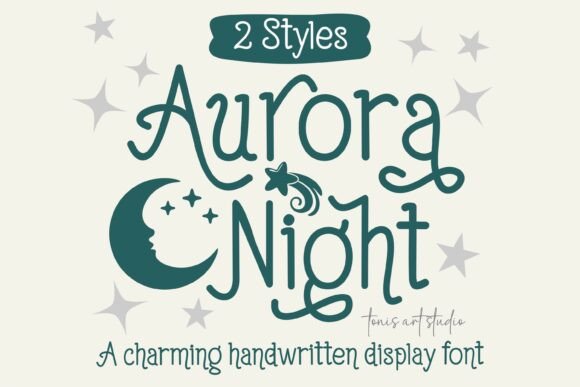
Introducing Aurora Night: The Whimsical Handwritten Font to Illuminate Your Designs
Aurora Night: A Font that Shines
Aurora Night is a beautiful, curly font that captures the enchantment of twinkling stars, gentle moonlight, and dream-filled nights. Its intricate curls, dynamic swishes, and tender, whimsical look make it an ideal choice for craft projects that call for a star-studded, romantic vibe. This font comes in two versatile styles: Regular and Lite, offering a variety of applications, from light and feathery designs to those requiring a bolder, more dramatic textual presence.
Perfect for Creative Projects
Aurora Night is perfectly suited for designers, crafters, and creative hobbyists who work with Cricut and Silhouette machines, sublimation design, stickers, children’s prints, nursery themes, logos, greeting cards, planners, quotes, labels, KDP interiors, and festive artwork. Whether you’re creating Christmas illustrations, magical bedtime tales, or adorable character drawings, Aurora Night infuses warmth, character, and a bewitching radiance to every creative endeavour.
- ✨ Unique and whimsical design that adds a touch of magic to any project
- ✅ Two versatile styles (Regular and Lite) for a range of applications
- ✨ Supports OpenType features, glyphs, and stylistic alternates for added creativity
⚠️ While Aurora Night is a beautiful font, it may not be the best choice for very formal or professional projects, as its whimsical nature may not fit the tone. 🤔 Additionally, some users may find the font’s intricate curls and swishes challenging to read in large blocks of text.
Aurora Night was inspired by the magic of a starry night sky. The font’s creator wanted to capture the essence of twinkling stars, gentle moonlight, and dream-filled nights in a beautiful, handwritten font. The result is a font that is both whimsical and elegant, perfect for adding a touch of magic to any design project.
| What type of projects is Aurora Night best suited for? | Aurora Night is perfect for craft projects that call for a star-studded, romantic vibe, such as Christmas illustrations, magical bedtime tales, and adorable character drawings. |